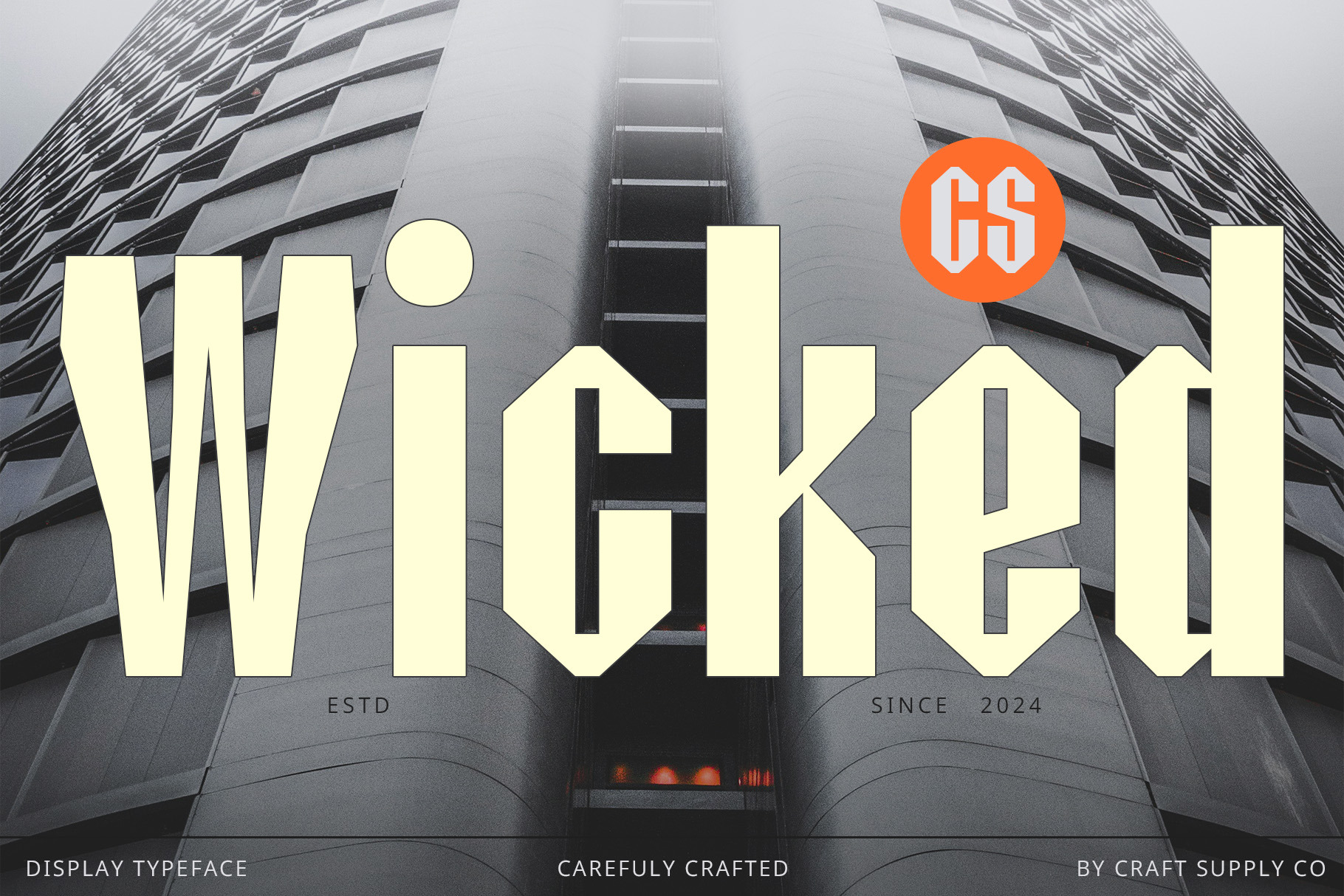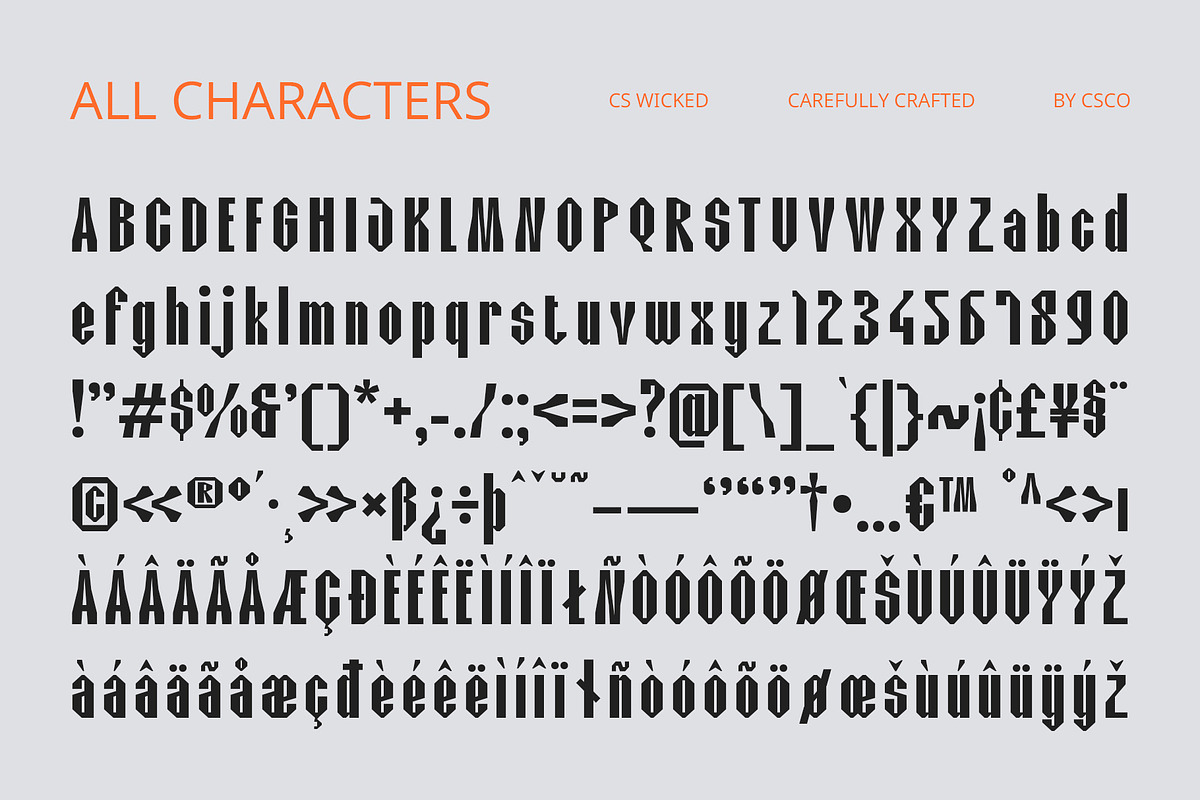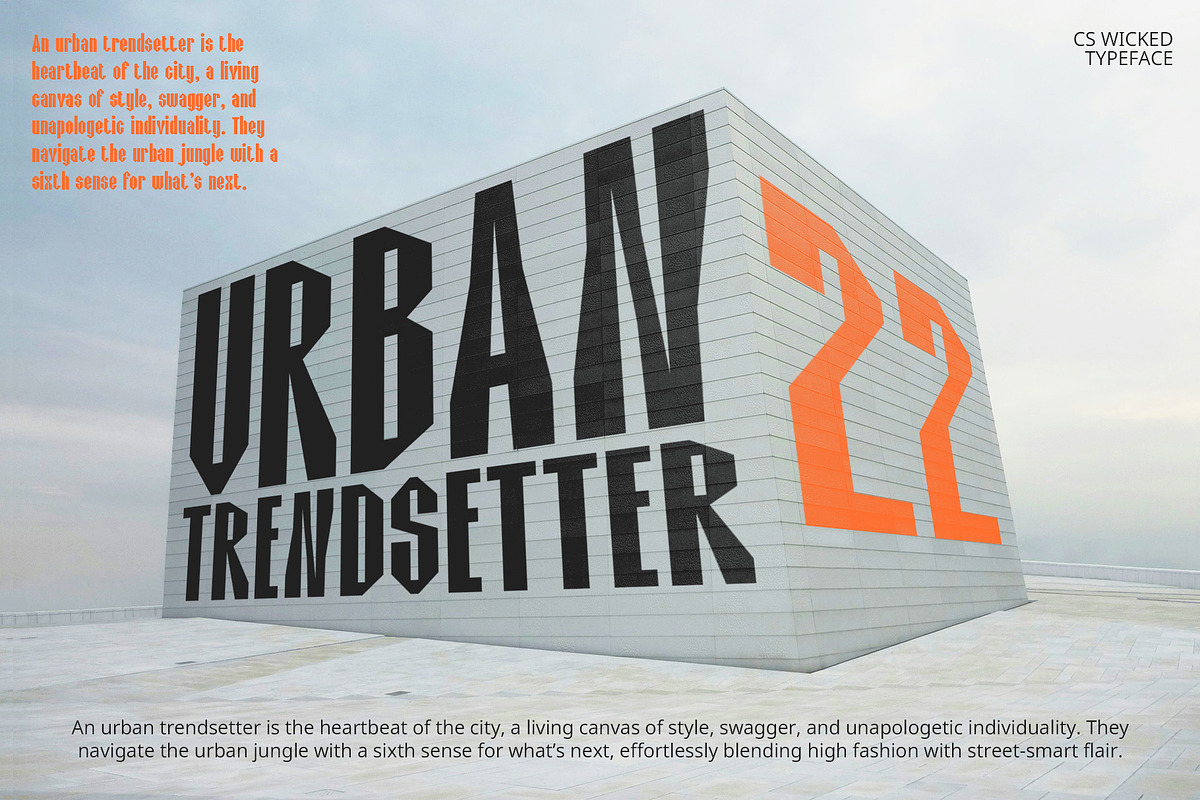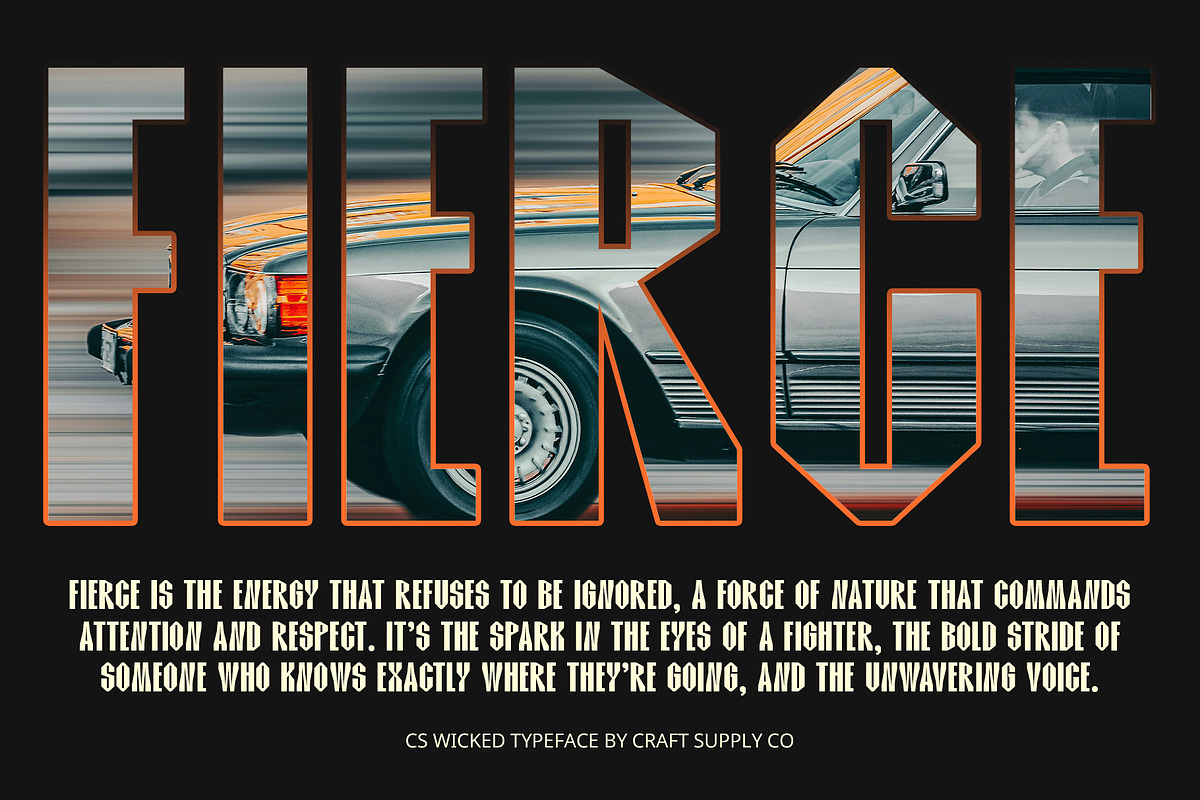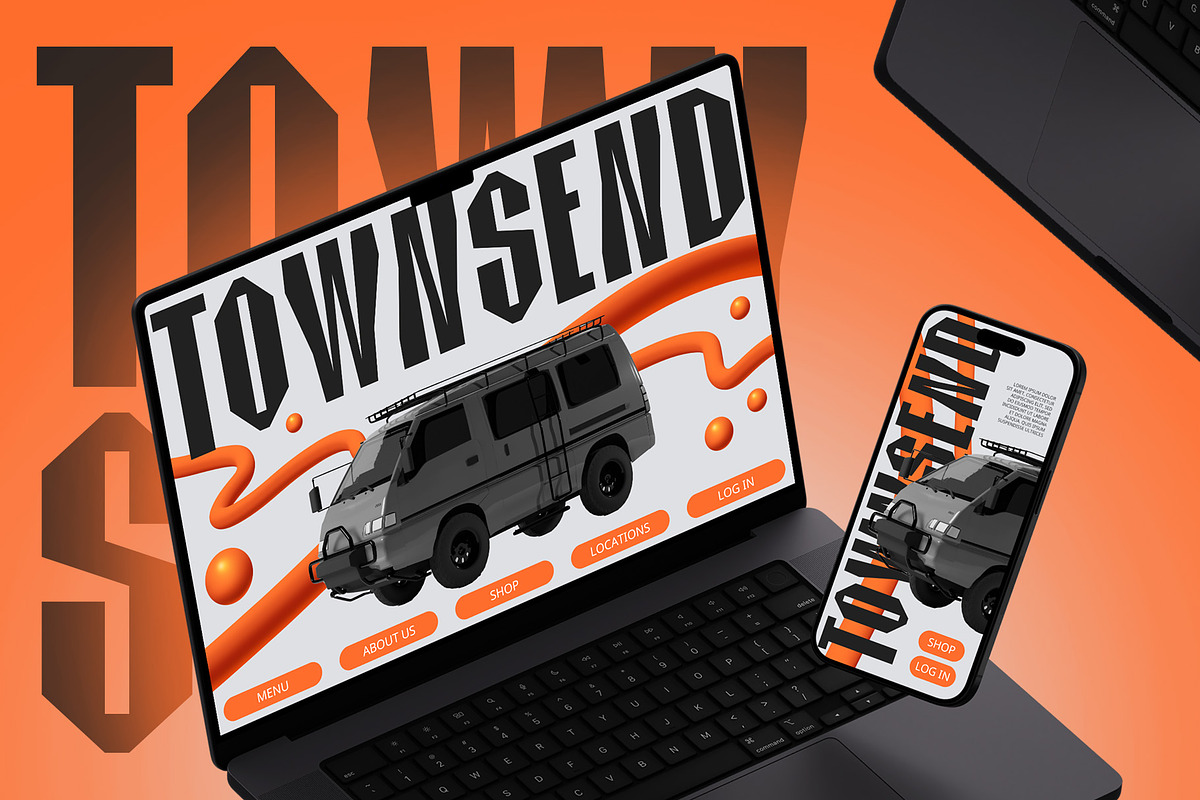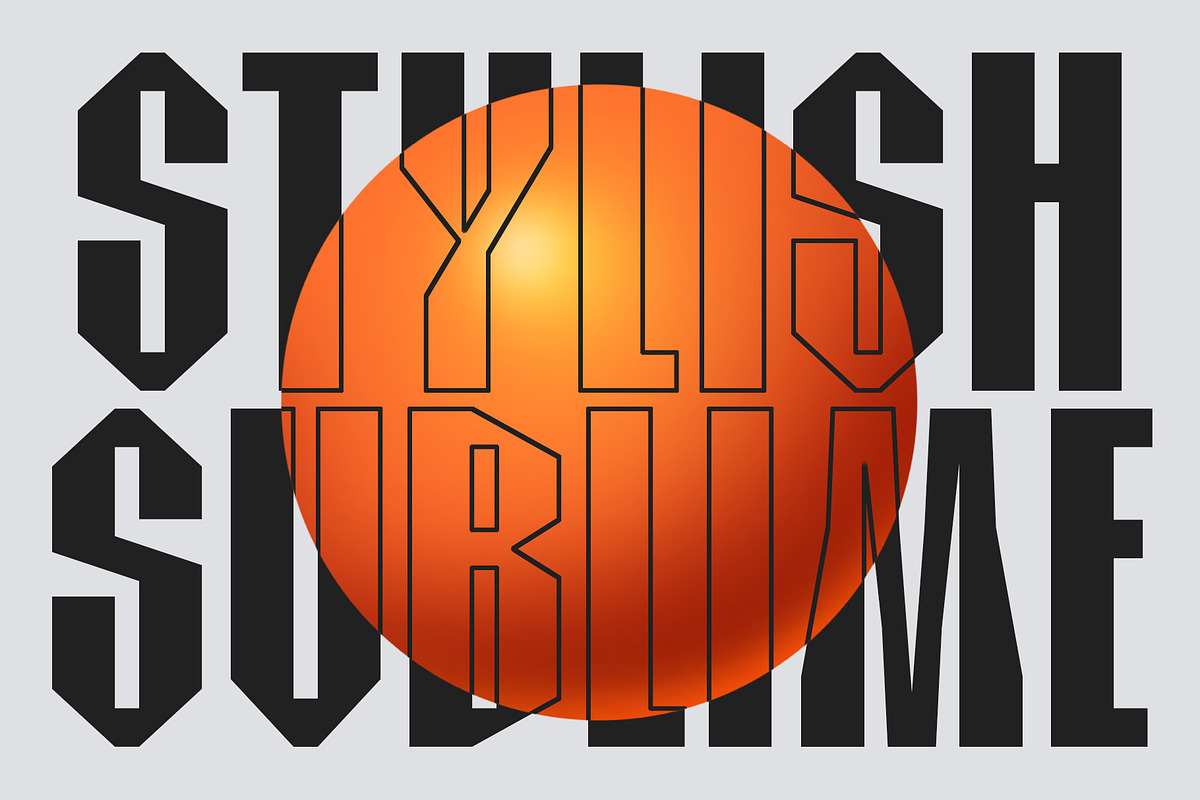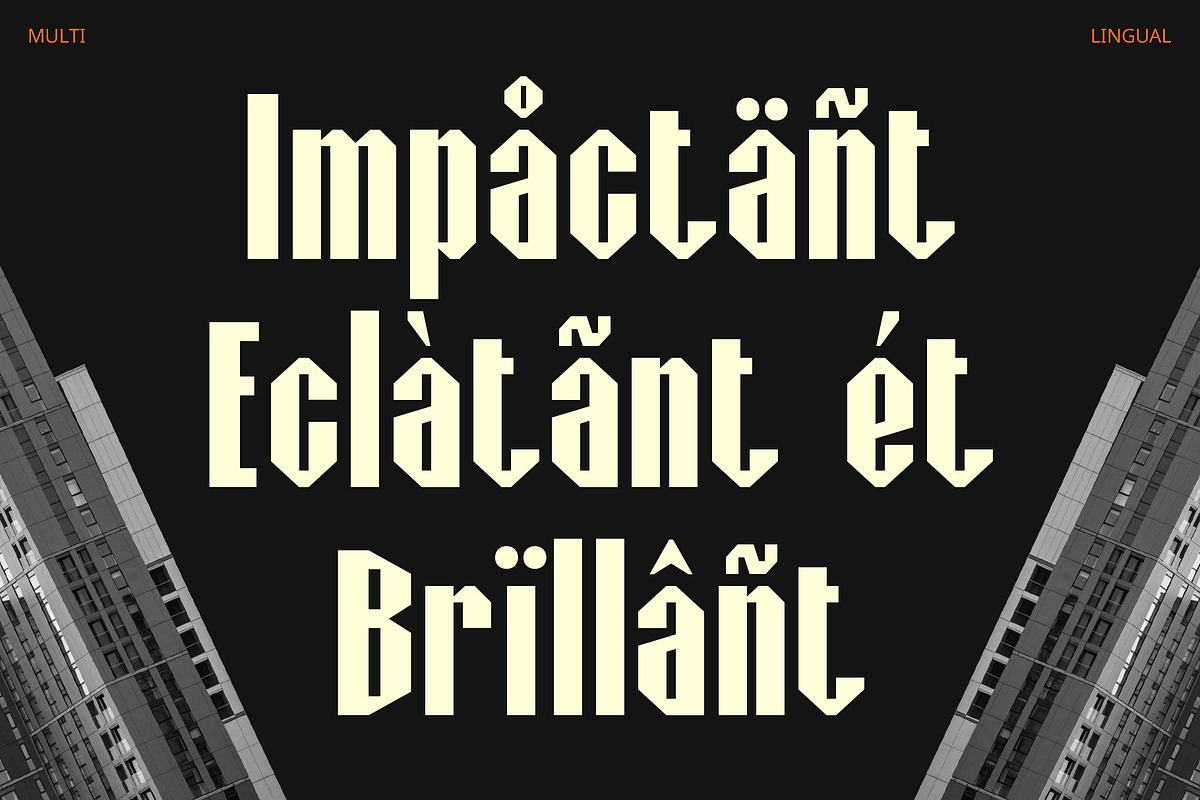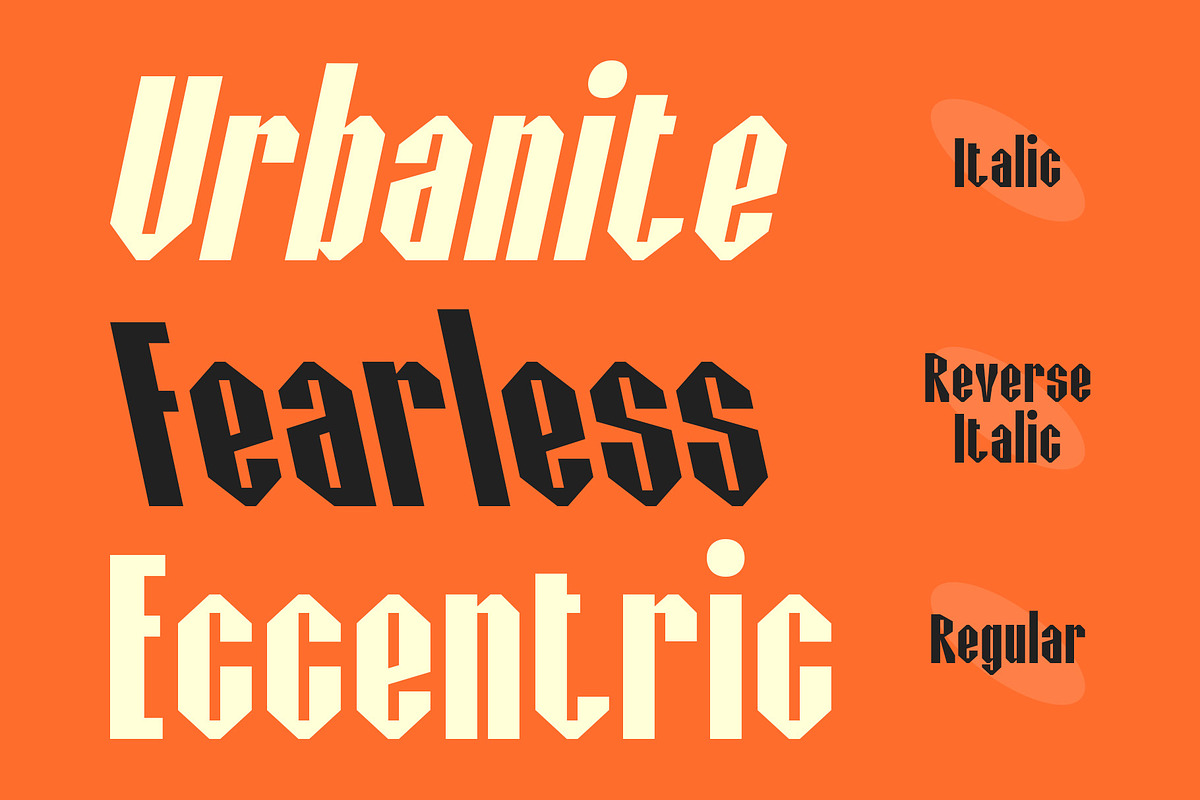
CS Wicked – Industrial Font
CS Wicked – Industrial Sans-Serif Font
Bold and Authoritative Industrial Design
CS Wicked is a display sans-serif font that exudes strength and durability through its bold, industrial style. Characterized by strong lines and sharp angles, this font commands attention with its solid and authoritative appearance. The bold design not only enhances visibility but also underscores a sense of power and reliability.
Functional and Robust Aesthetic
Emphasizing functionality and ruggedness, CS Wicked’s industrial style brings a modern and practical edge to your designs. Its robust form is ideal for projects that need to convey a sense of stability and professionalism, making it a perfect choice for industrial company branding, technology promotional materials, and any design requiring a strong, masculine impression.
Versatile for Professional and Modern Applications
The font’s powerful presence makes it suitable for various applications where a contemporary and assertive look is essential. From corporate identities to high-impact marketing materials, CS Wicked ensures a bold and striking impression, aligning with modern aesthetics and professional needs.
Powerful Typography for Impactful Design
CS Wicked blends industrial toughness with bold design elements to offer a font that stands out with authority and durability. Whether for branding, technology, or professional materials, this font provides a distinctive and impactful look that reinforces strength and reliability.